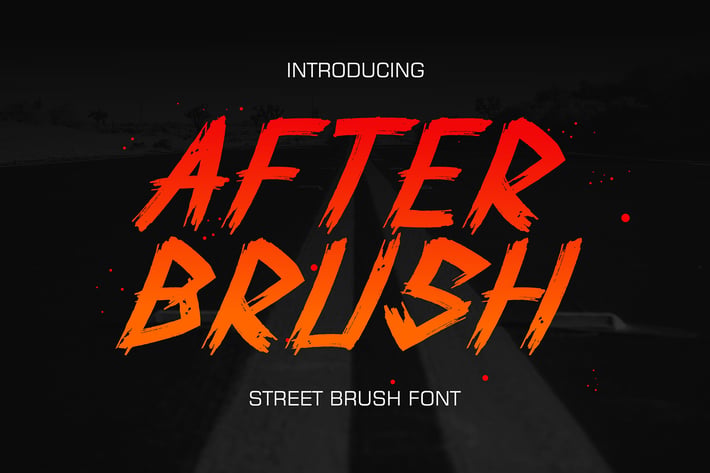
After Brush - Street Brush Font
Hello, this is After Brush - Realistic Awesome Monoline Display Font!
This font was designed so that users can use it more easily and make Monoline designs easier. After Brush is very suitable for use in various media such as; packaging, logos, labels, posters, shirt designs, bulletins, typography, and many other media, especially with Monoline look.